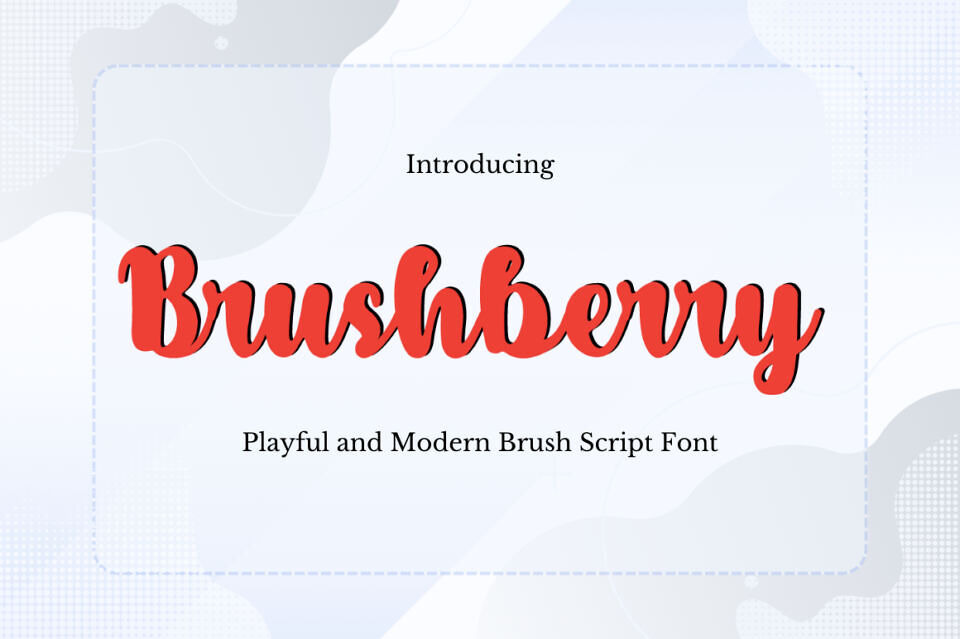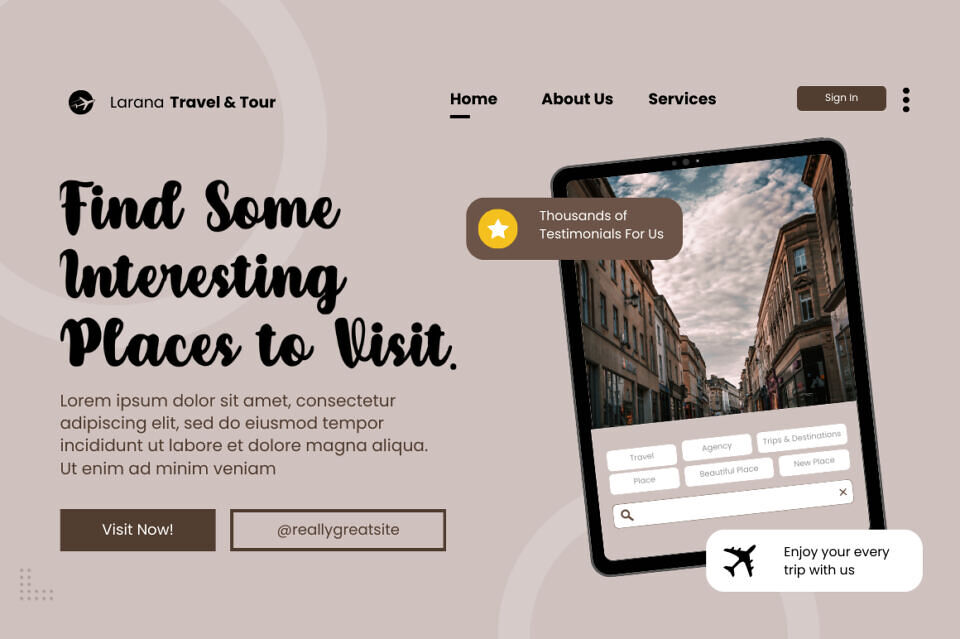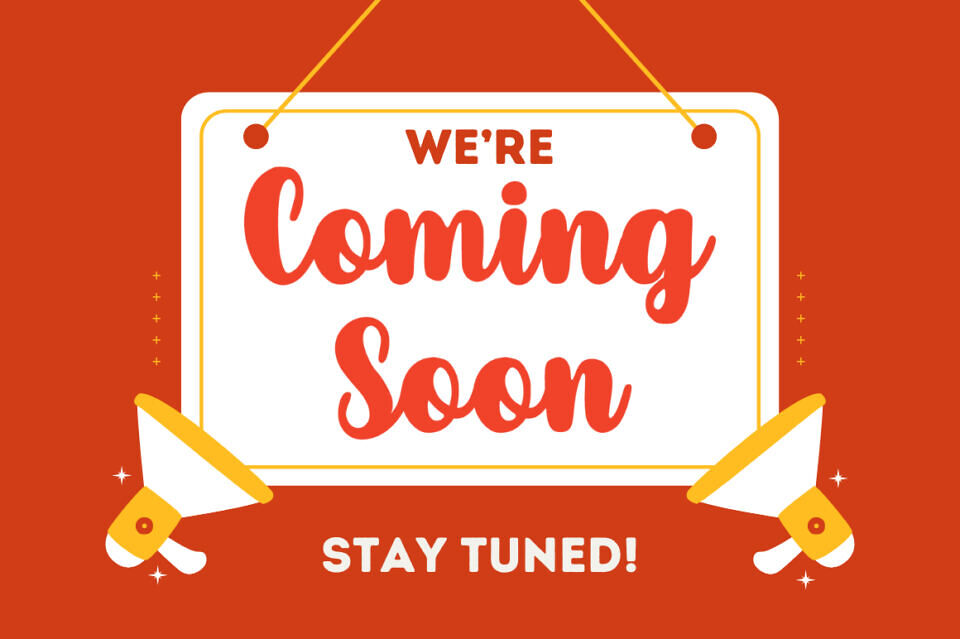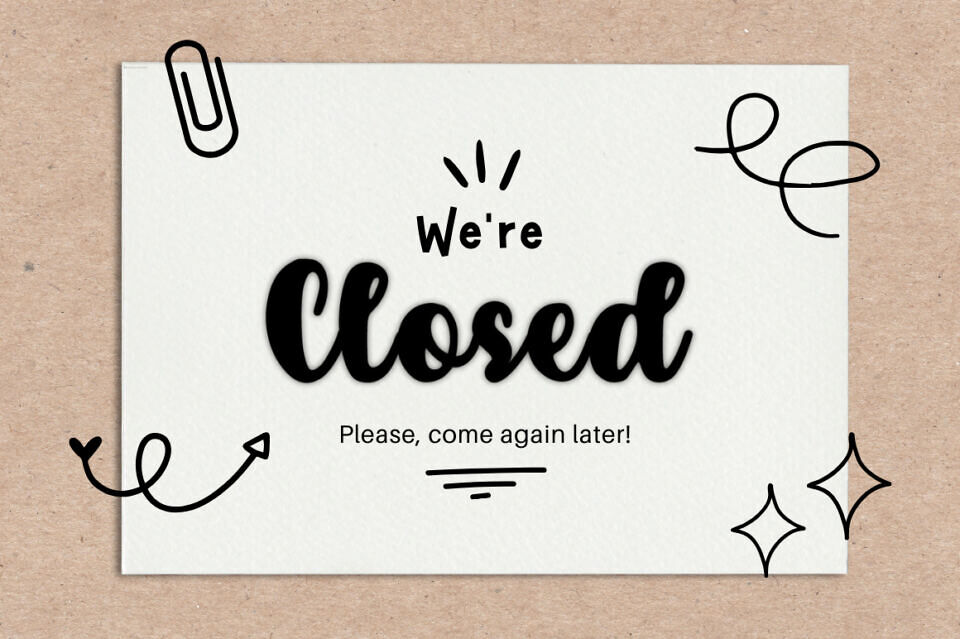
Brushberry is a playful and modern brush script font designed with smooth curves and bold strokes, perfect for creative projects that need a fresh and friendly touch. This font works beautifully for logos, branding, social media posts, invitations, packaging, and more.
With its handwritten brush style, BrushBerry adds a natural and artistic vibe to any design. Whether you’re creating quotes, posters, or custom lettering, this font gives your work a stylish and eye-catching appeal.